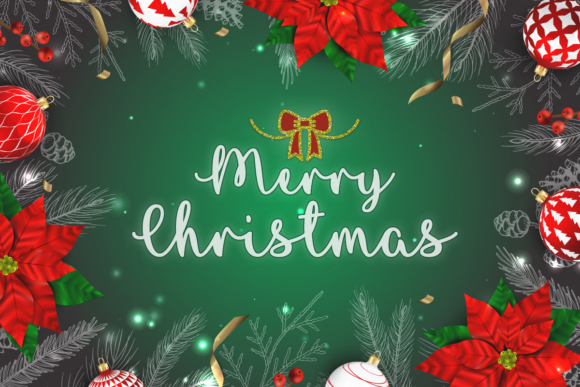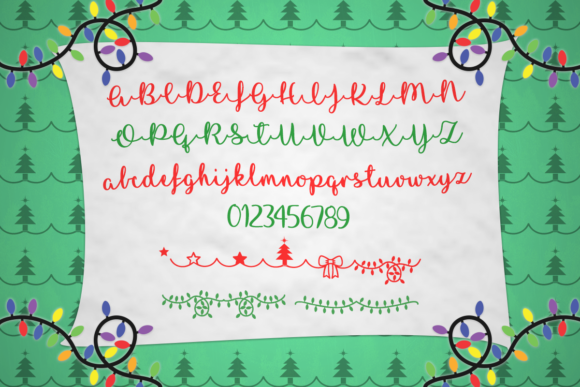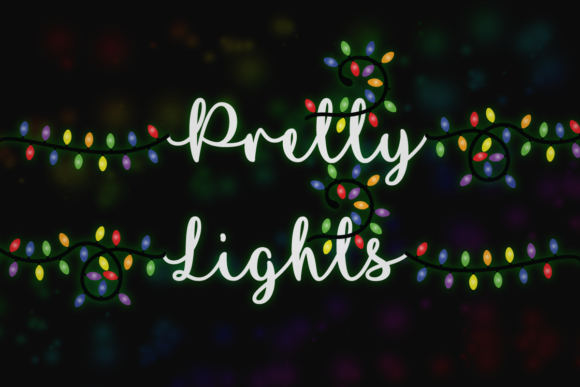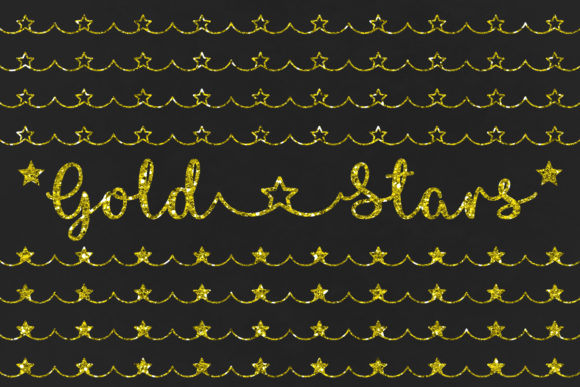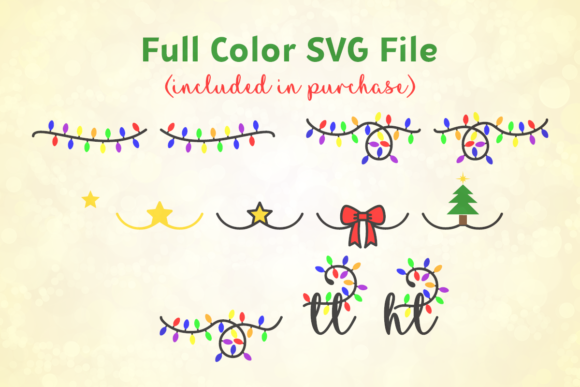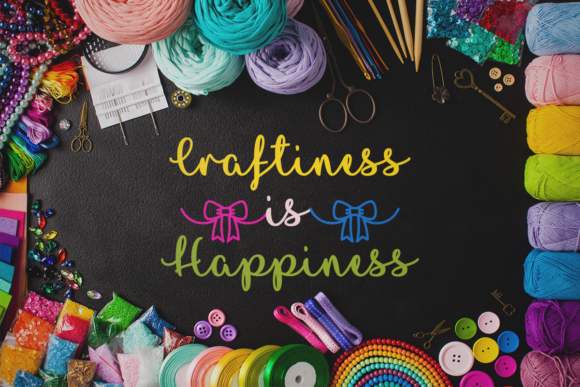
I Love Glittermas Font
About I Love Glittermas Font
I Love Glittermas is a delightful and festive handwritten font that captures the magic of the Christmas holiday. With its cute and charming elements, this font is perfect for adding a touch of holiday cheer to your designs.
The font’s handcrafted feel and whimsical style make it ideal for creating Christmas-themed designs. Whether you’re designing greeting cards, gift tags, invitations, or social media graphics, I Love Glittermas will add a dose of festive charm to your projects.
The cute festive elements, such as snowflakes, stars, and Christmas decorations, make I Love Glittermas stand out and evoke the joyful spirit of the holiday season. The font’s playful and fun nature will bring a smile to your audience’s faces and create a sense of warmth and happiness.
I Love Glittermas is highly versatile and can be used for a wide range of projects. From holiday-themed posters and flyers to merchandise and branding materials, this font will elevate your designs and make them truly spectacular.
By using I Love Glittermas, you can bring a touch of Christmas magic to your creations and make your ideas even more realistic and captivating. Let this font add a festive and cheerful vibe to your designs and create spectacular holiday-themed projects that will enchant and delight your audience. Embrace the holiday spirit with I Love Glittermas and make your designs shine with festive charm!